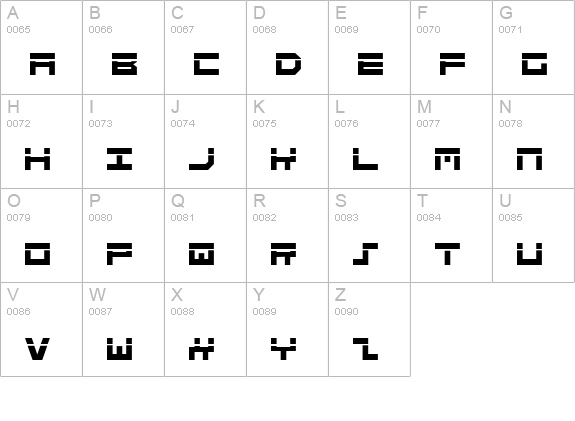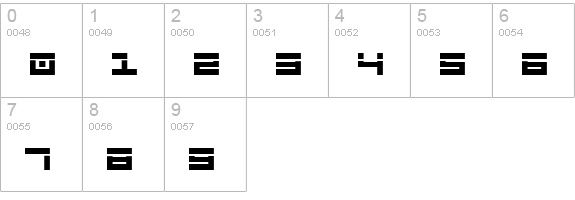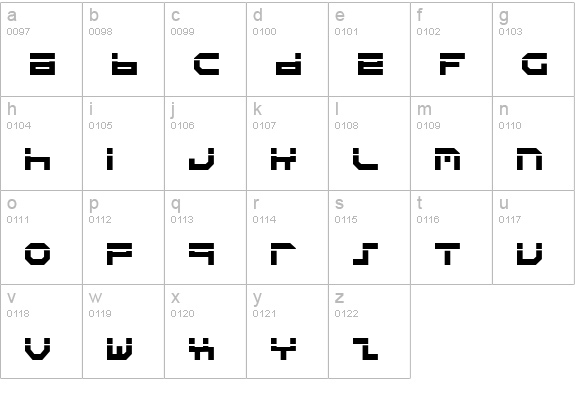
Stuntman Laser font is a dynamic and eye-catching display typeface that exudes a sense of energy and excitement. With its bold and futuristic design, this font is perfect for projects that require a modern and edgy look. The sharp lines and sleek curves of Stuntman Laser make it a standout choice for titles, headlines, logos, and more. The best part? Stuntman Laser font is completely free to download at FontsMarket.com. This means you can add this striking typeface to your design arsenal without breaking the bank. Whether you're working on a poster, website, or branding project, Stuntman Laser font will help you make a bold statement and grab your audience's attention. Don't miss out on the opportunity to elevate your designs with the captivating Stuntman Laser font, available for free download now at FontsMarket.com.